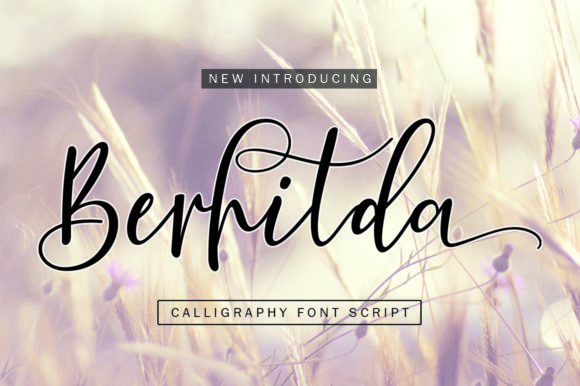
The Berhilda Font: A Modern Calligraphy Dream
I’ll never forget the time I was working on a wedding invitation project, and my client asked for a font that was elegant, feminine, and had a natural writing style. I scoured the internet, tried countless fonts, but nothing seemed to fit the bill. That was until I stumbled upon the Berhilda font. ✨ It was love at first sight! The Berhilda font has a way of adding a touch of sophistication and whimsy to any design project. In this article, I’ll share my experience with this beautiful font, its features, and how to make the most of it in your designs.
- ✨ Elegant and feminine feel that’s perfect for wedding invites, branding, and more
- ✅ Natural writing style that adds a touch of sophistication to any design
- 💫 Highly versatile and can be used for a wide range of projects, from magazines to mugs
- 🎨 Beautifully crafted with attention to detail, making it a joy to work with
While the Berhilda font is amazing, there are a few things to keep in mind: 🤔
- ⚠️ Some users may find the font a bit too script-heavy for certain projects
- ⚠️ Not ideal for body text, as it’s best suited for headlines and titles
- Experiment with the font’s OpenType features, such as stylistic alternates and glyphs, to add some personality to your design
The Story Behind Berhilda
Berhilda was designed with the intention of creating a modern calligraphy font that was both elegant and feminine. The designer wanted to create a font that would be perfect for a wide range of projects, from wedding invites to branding. With its natural writing style and attention to detail, Berhilda has become a favorite among designers and crafters alike.
Q: Is Berhilda suitable for body text?
A: While Berhilda is a beautiful font, it’s best suited for headlines and titles. It’s not ideal for body text, as it can be a bit too script-heavy.